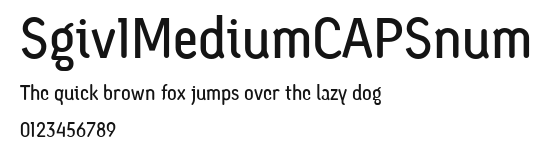
• Font Name: Sgiv1MediumCAPSnum
• Full Font Name: Sgiv1MediumCAPSnum
• PostScript Name: Sgiv1MediumCAPSnum
About Sgiv1MediumCAPSnum.ttf
Sgiv1MediumCAPSnum.ttf is a modern, elegant sans-serif font designed for ultimate readability and visual harmony. Perfect for branding, headlines, web design, and print materials.